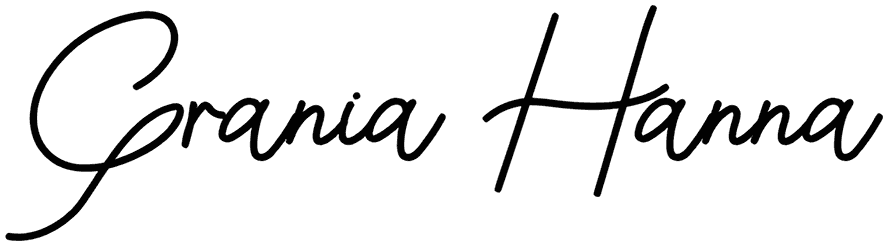
Grania Hanna Font
If you are into minimal and daily writing, this is the right option for you. As an autograph font, Grania Hanna has monoline lettering with a casual and modern vibe. We suggest you set it up for many projects on different topics, such as postcards, planners, illustrations, iconic logos, and similar.